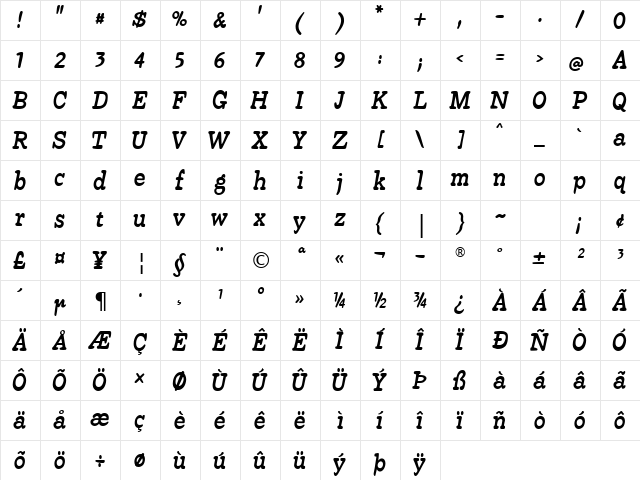
Beta54 Regular
| Foundry | Peter Wiegel |
| Designer | Peter Wiegel |
Design Context for Beta54 Typeface
Beta54 is a composed and adaptable typeface that performs quietly and consistently across a wide range of design contexts.